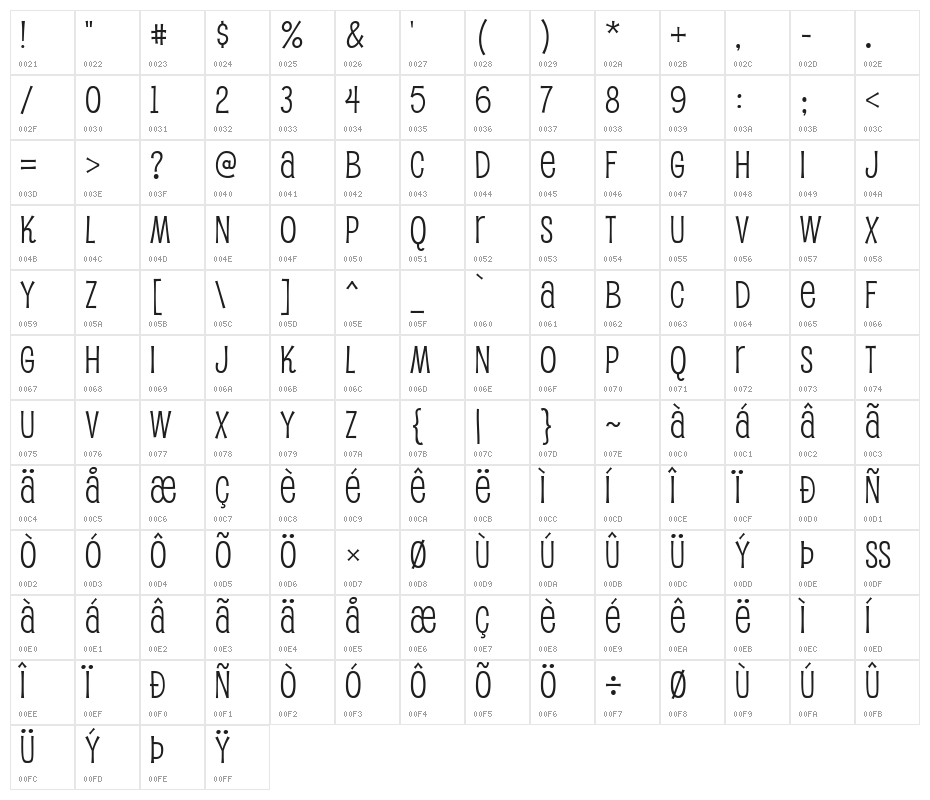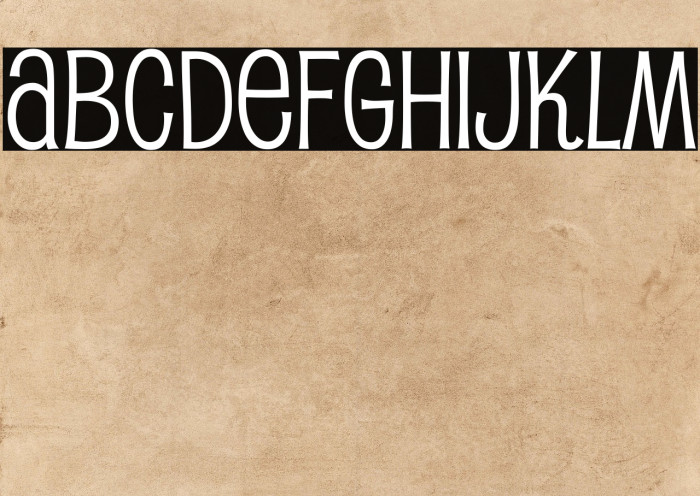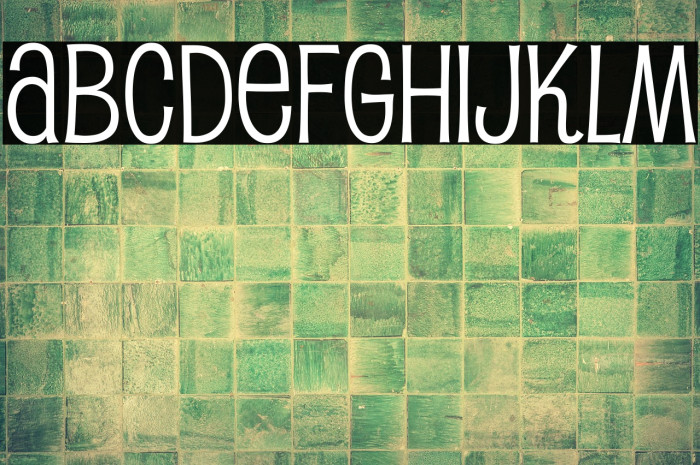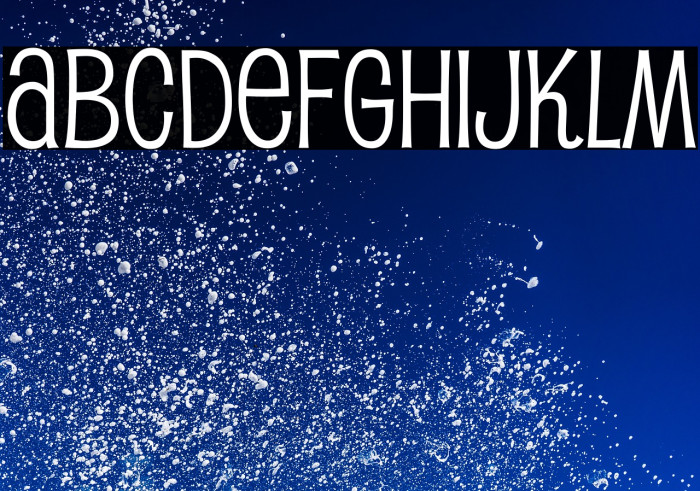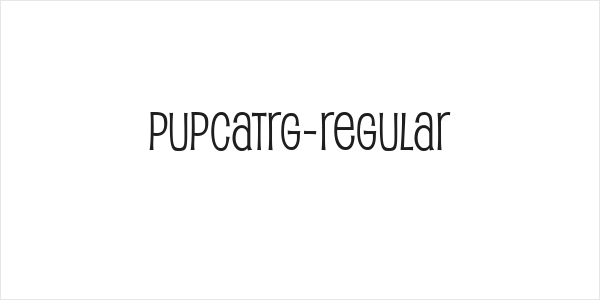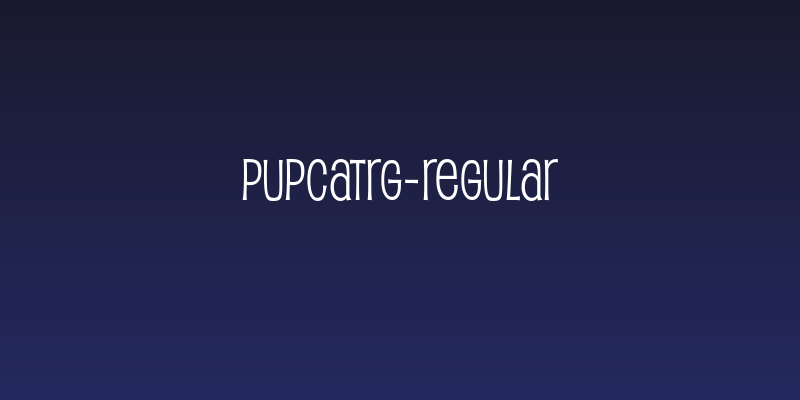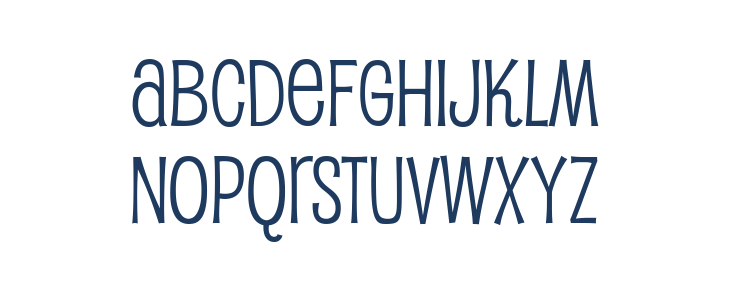
PupcatRg-Regular Font
PupcatRg-Regular Description
This font features a playful and quirky design with a unique blend of rounded and angular elements. The uppercase letters exhibit a tall and narrow form, while the lowercase letters maintain a consistent style, offering a harmonious balance. The numerals are distinct and easily readable, complementing the overall aesthetic. Special characters are creatively designed, adding to the font's charm. This font's style is both modern and whimsical, making it suitable for a variety of creative projects.
| Overall Style | Modern, Whimsical |
| Use Case | Headlines, Logos, Creative Projects |
| Proposed Projects | Ideal for children's books, playful branding, creative posters, and unique invitations. |